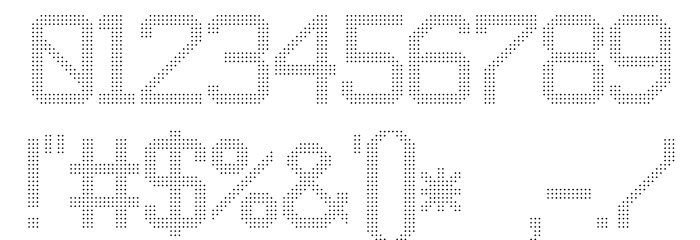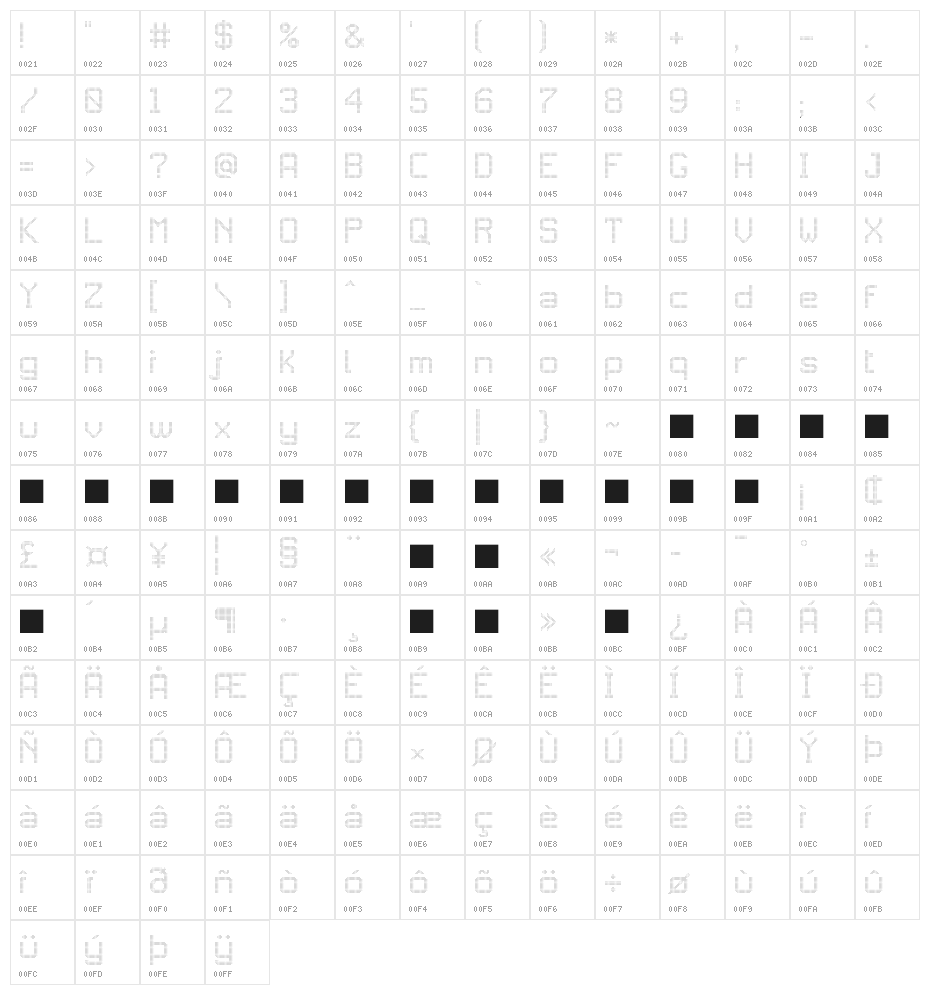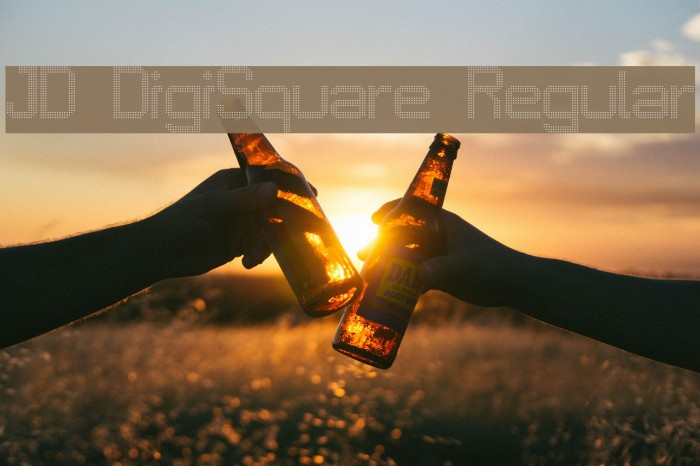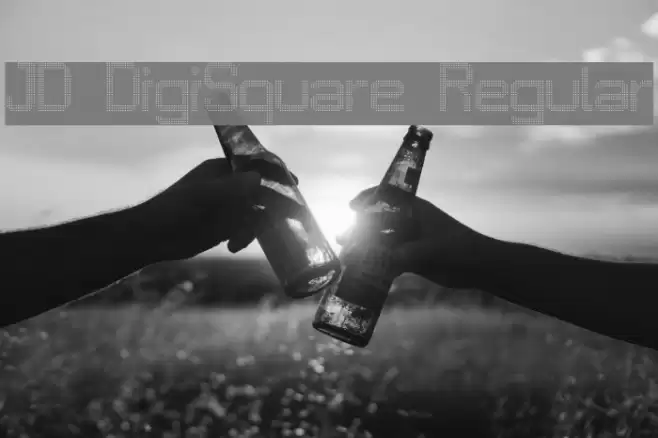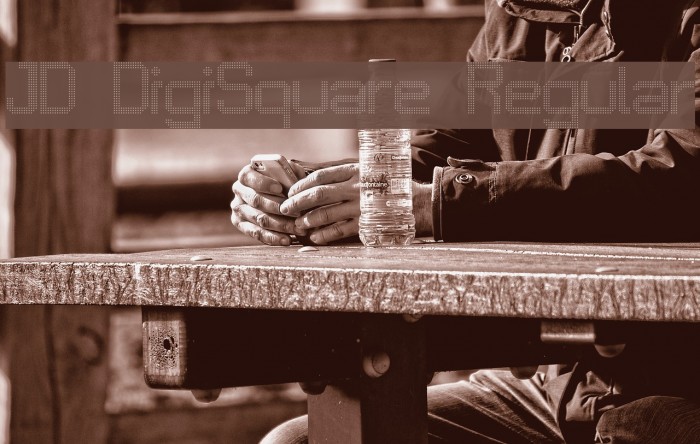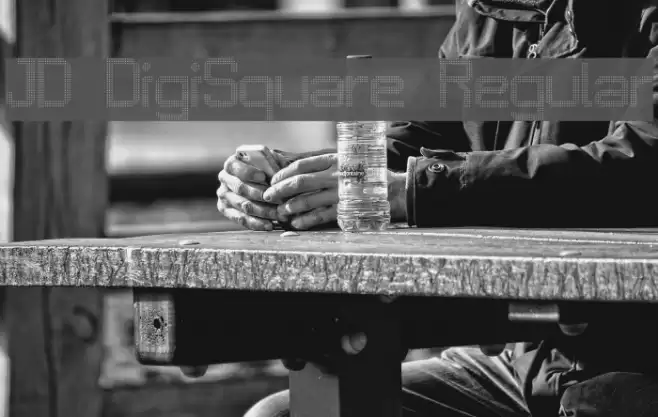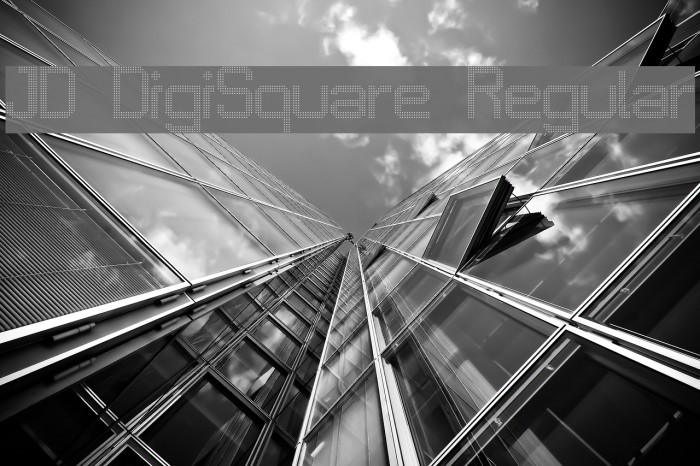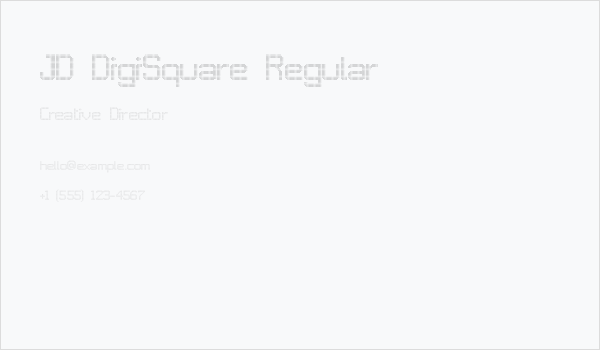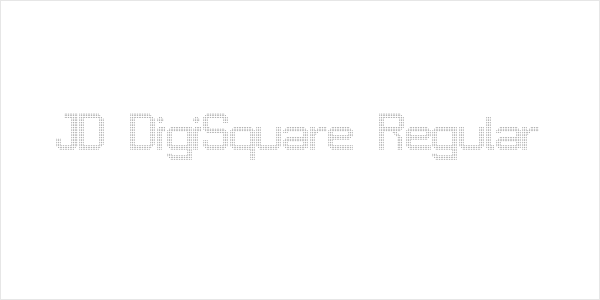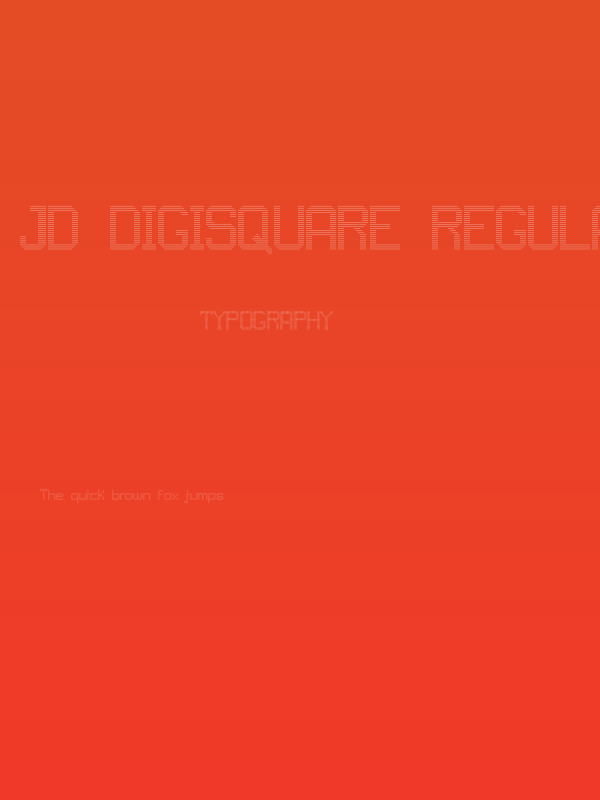
JD DigiSquare Regular Font
JD DigiSquare Regular Description
This font features a unique dotted design, where each character is composed of small, evenly spaced dots. The geometric and digital aesthetic gives it a modern and futuristic feel. The uppercase and lowercase letters maintain a consistent style, with clean lines and a structured appearance. Numbers and special characters follow the same dotted pattern, ensuring uniformity across all elements. This font's distinct style makes it stand out, offering a visually engaging experience.
| Use Case | Logos, Headlines, Digital Art |
| Proposed Projects | Ideal for digital displays, tech-themed projects, futuristic branding, and creative posters. |